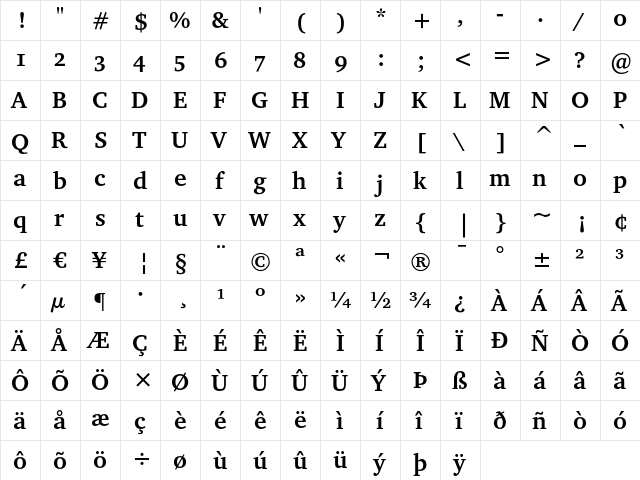
Bitstream Charter Bold OSF
Design Context for Bitstream Charter Typeface
Bitstream Charter is a composed and adaptable typeface that performs quietly and consistently across a wide range of design contexts. Its bold stroke weight gives it real presence on the page.
Pro Tip: Pair Bitstream Charter with a font of contrasting weight or personality to build a more expressive typographic hierarchy.